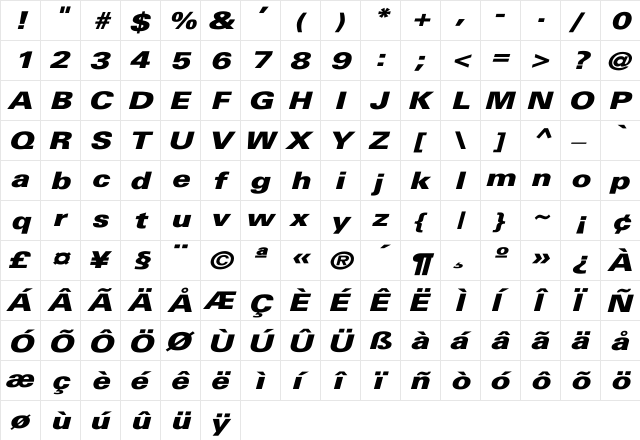
Univers-Black-Italic Wd Regular
Design Context for Univers-Black-Italic Wd Typeface
Univers-Black-Italic Wd is a composed and adaptable typeface that performs quietly and consistently across a wide range of design contexts. The dynamic lean of this cut emphasises speed and emphasis in any layout.
Pro Tip: Try Univers-Black-Italic Wd for annotation and caption copy alongside an upright companion — the contrast in angle creates a dynamic but ordered typographic system.